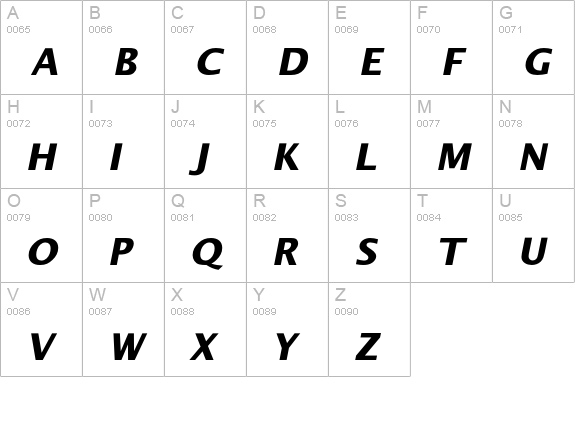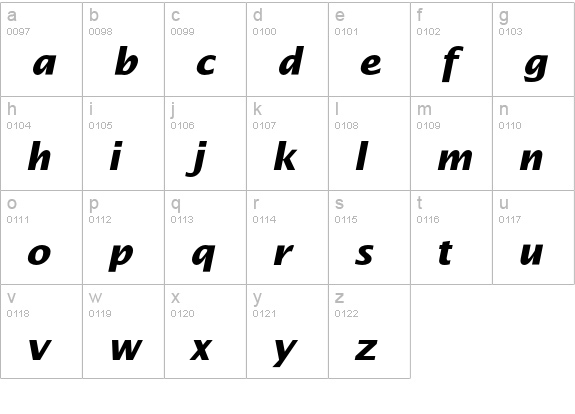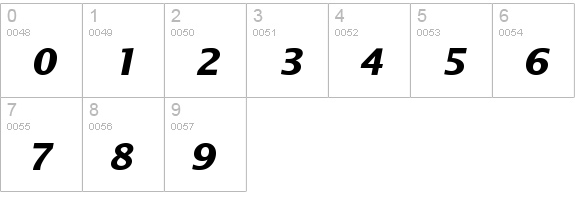
LucidaSansEF-BoldItalic Font Details
LucidaSansEF-BoldItalic font is a striking and dynamic typeface that exudes confidence and modernity. Its bold and italic design creates a strong visual impact, making it ideal for headers, titles, and other attention-grabbing text. The sleek curves and sharp angles of this font give it a contemporary edge, perfect for adding a touch of sophistication to any design project. What sets LucidaSansEF-BoldItalic font apart is that it is available for free download at FontsMarket.com. This means you can easily access this stylish and versatile font to elevate your designs without breaking the bank. Whether you're working on a website, branding materials, or any other creative project, LucidaSansEF-BoldItalic font is a fantastic choice that combines elegance with readability. Download it today and unleash your creativity with this eye-catching typeface.